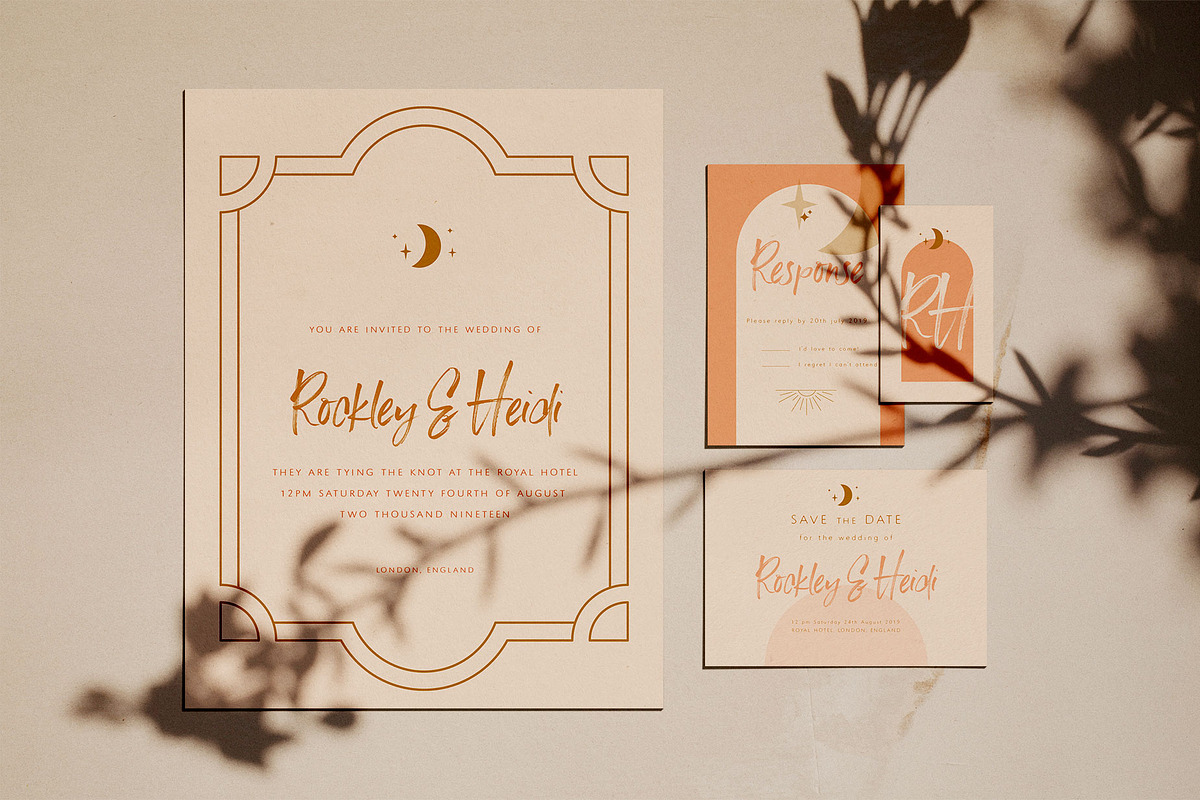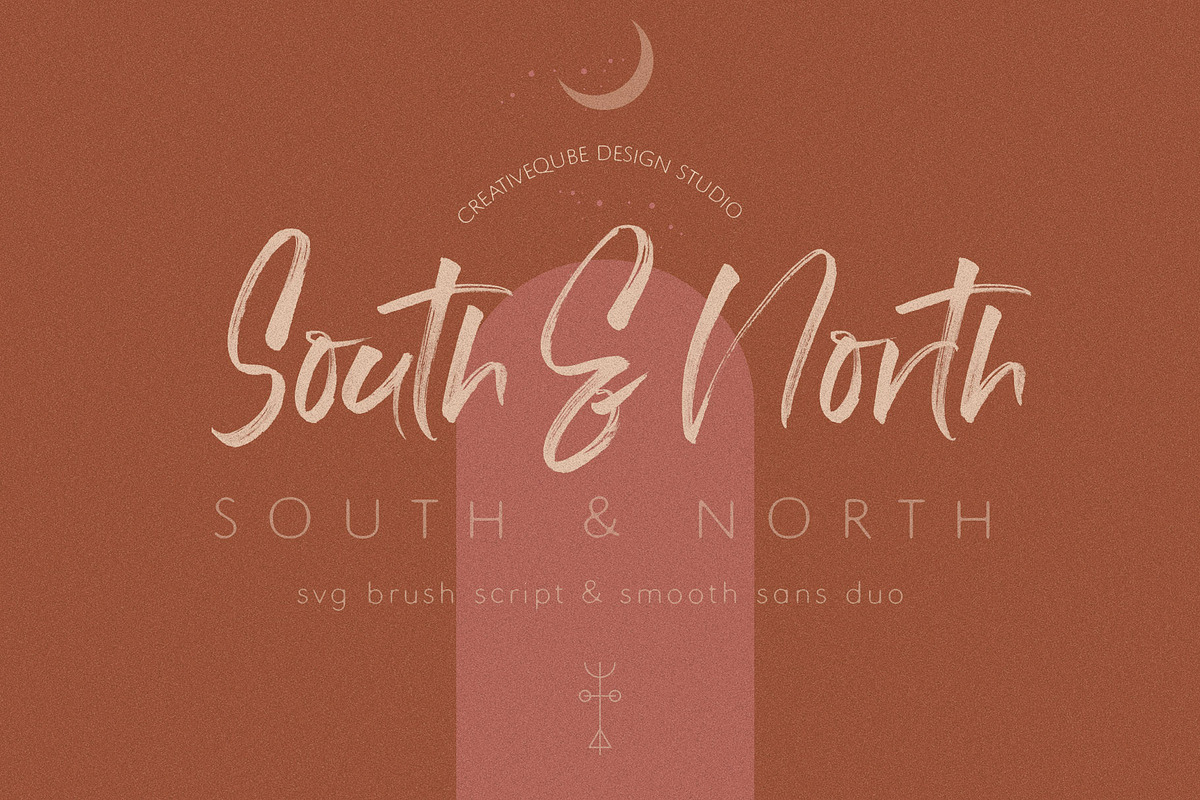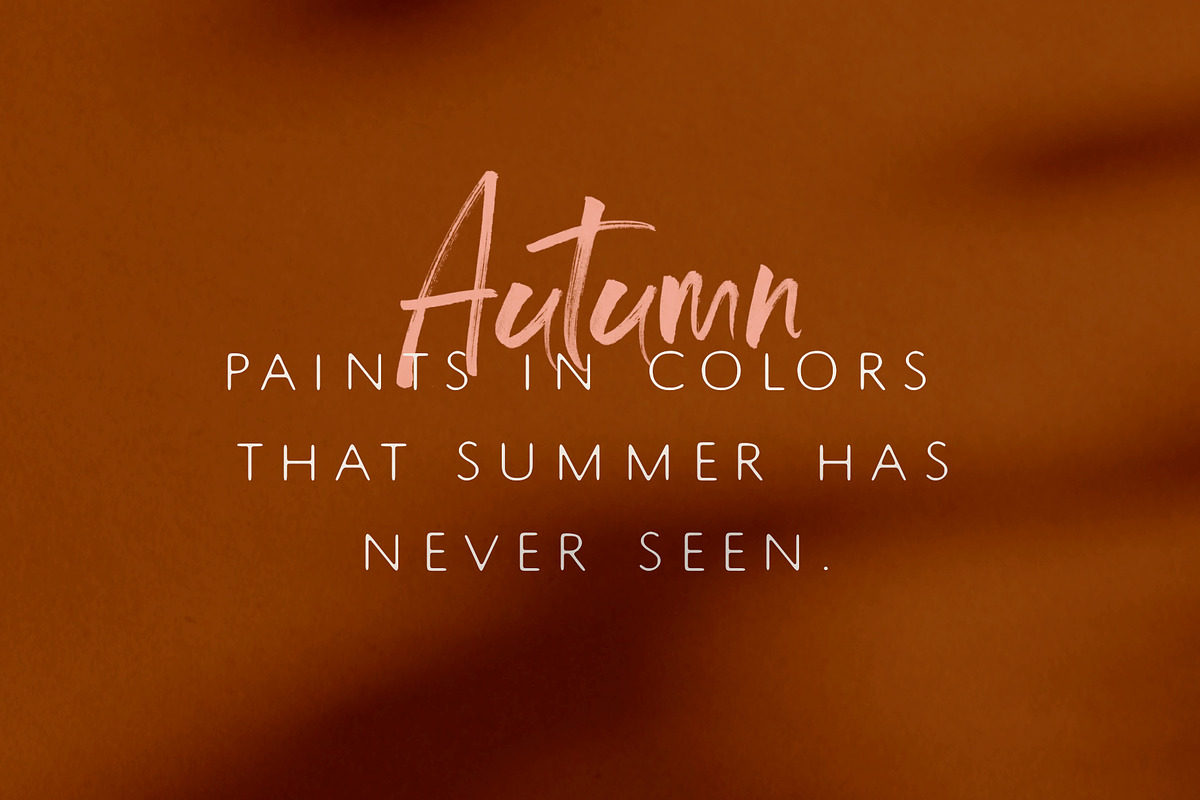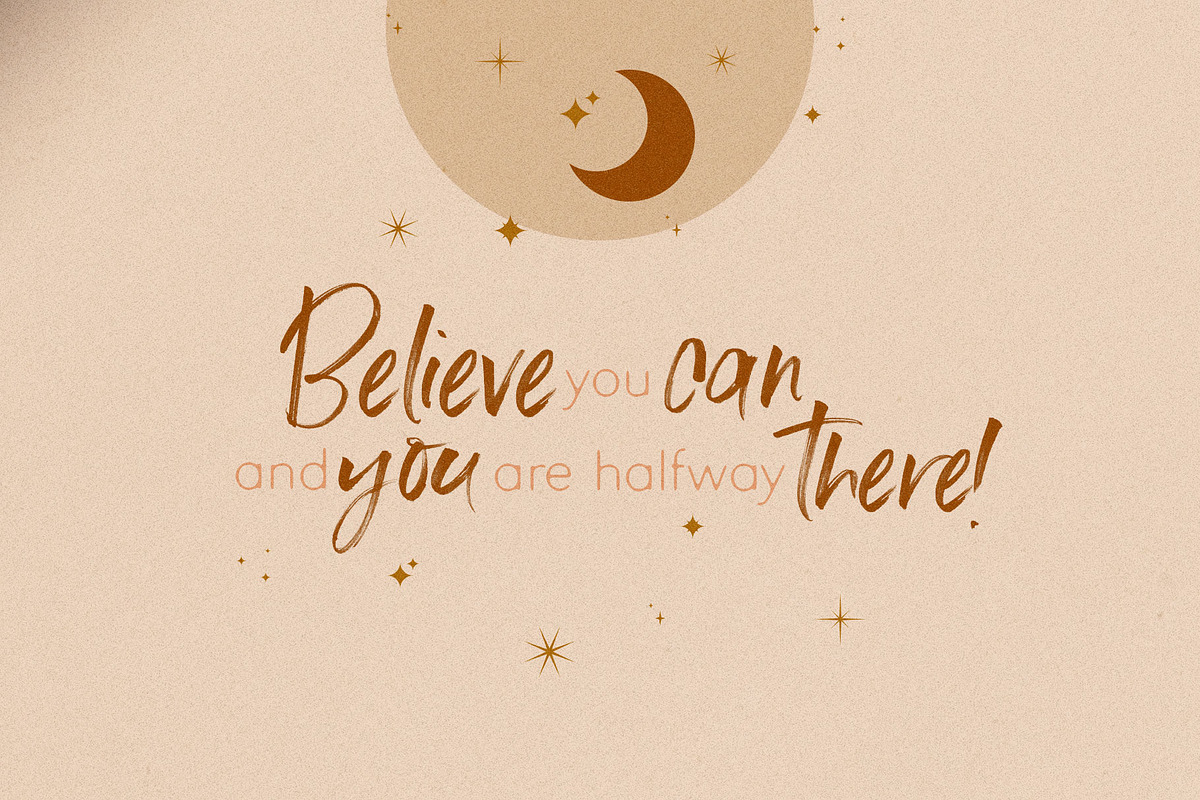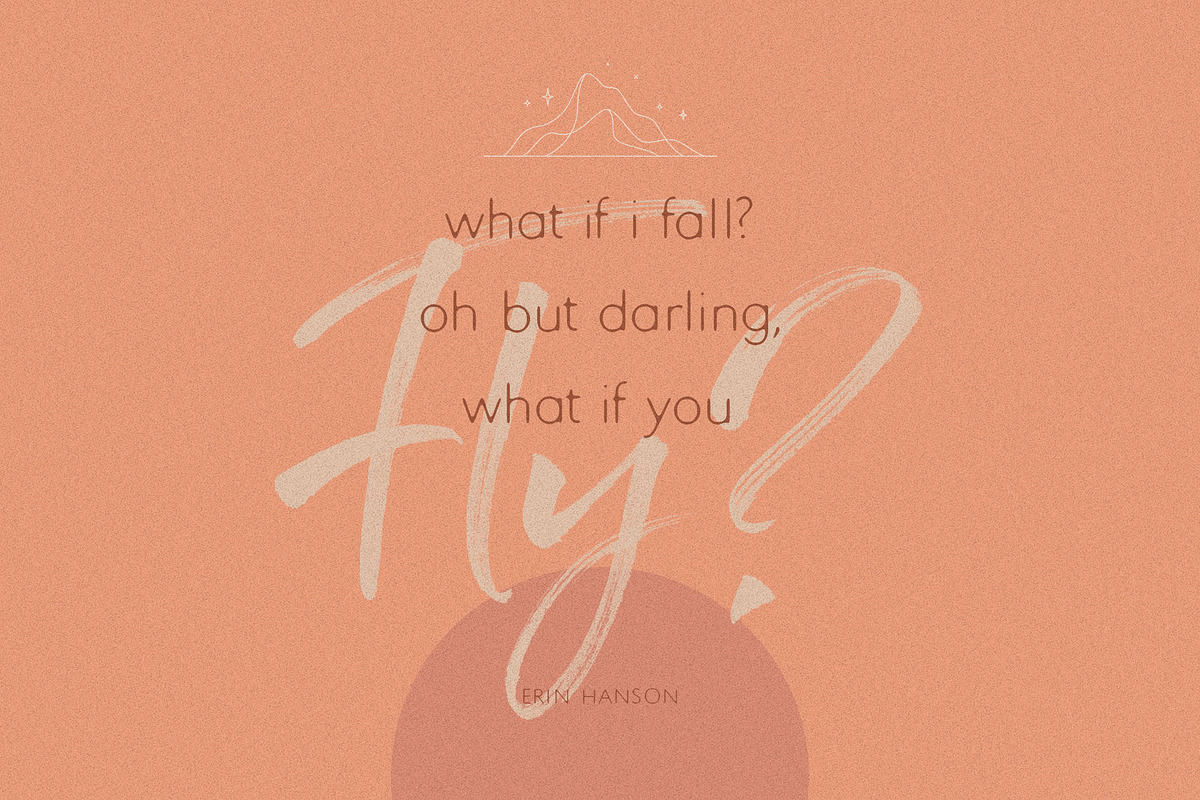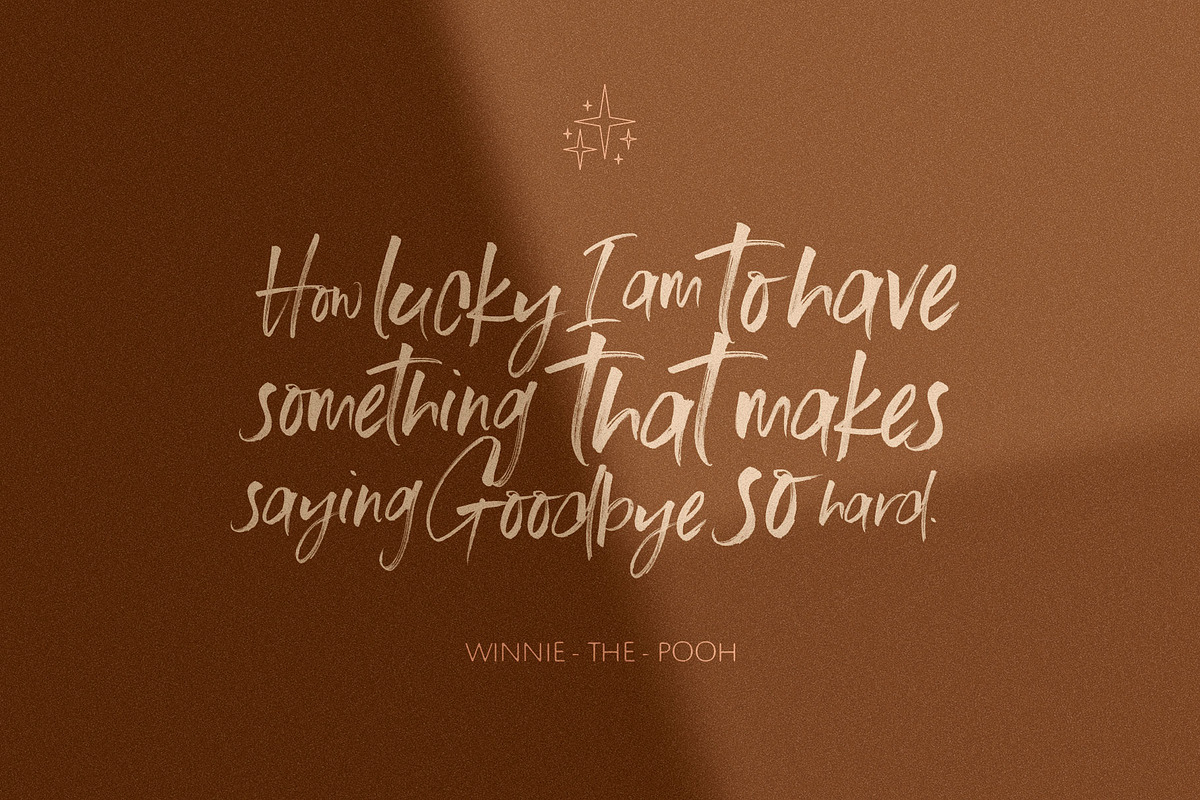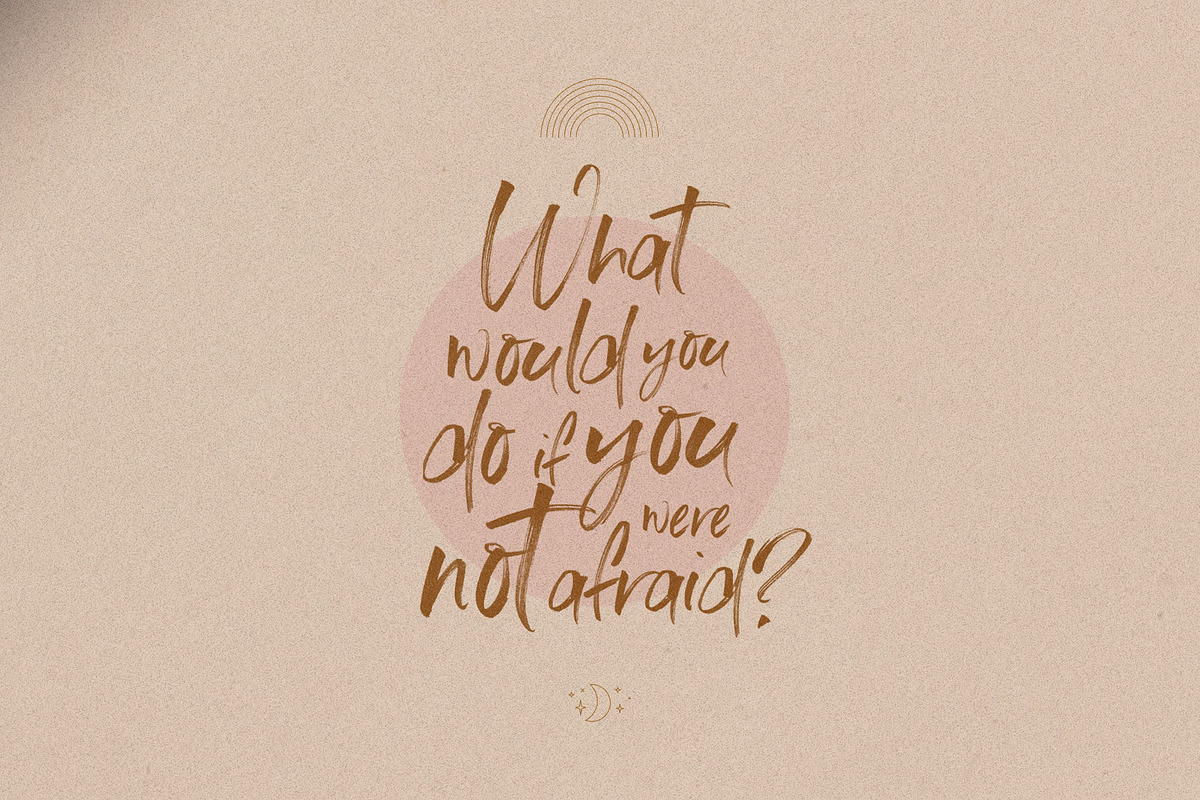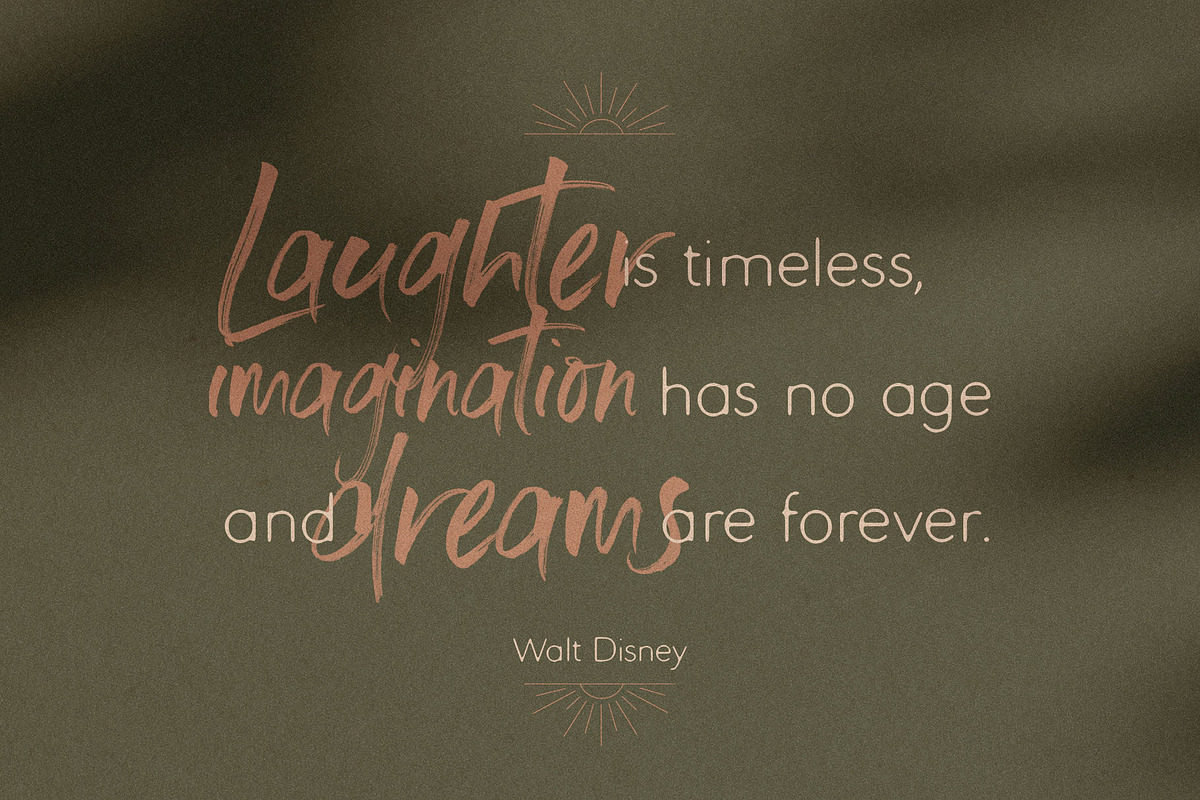
South & North SVG Font Duo
South & North SVG Font Duo is a modern hand brushed SVG font & sans serif that makes for stunning logos, quotes, wedding invites, blog posts, Instagram, and more!
They pair beautifully together in all kinds of applications. The sans looks gorgeous with tracking set at 500, as well as where it's normal setting at zero.
Why South & North SVG Font Duo is worth a look
South & North SVG Font Duo by Creativeqube Design fits naturally into Branding, posters, packaging, typography.